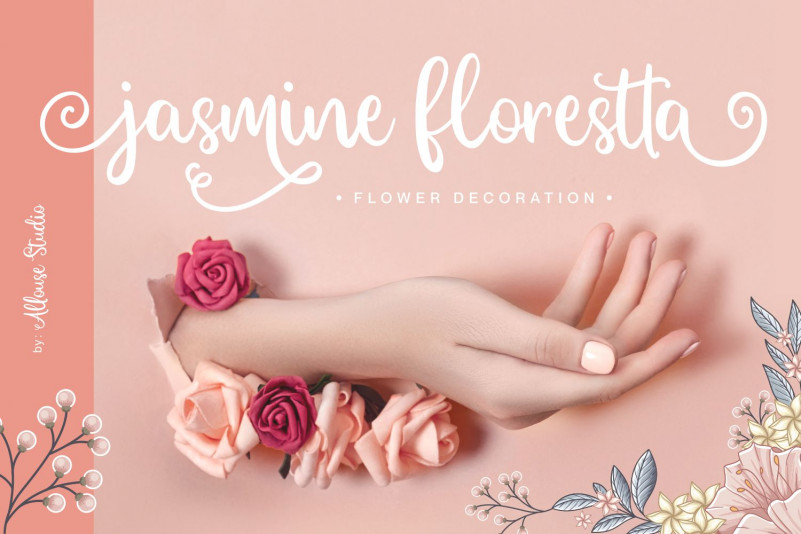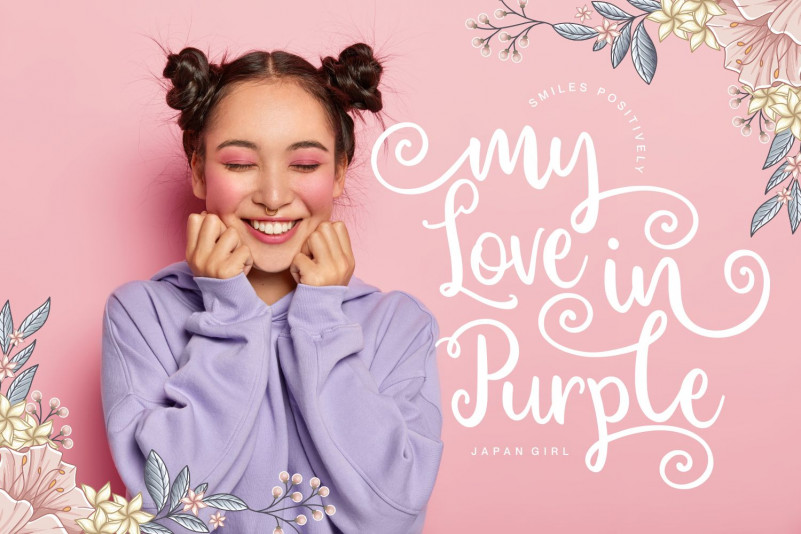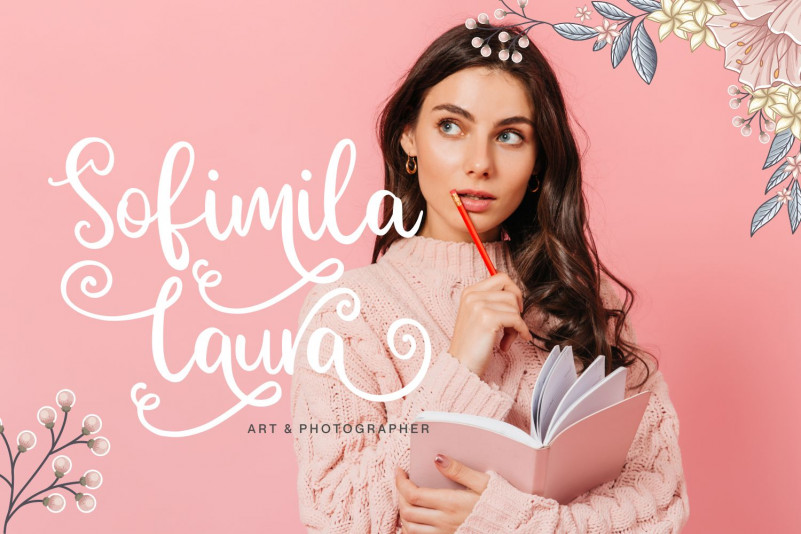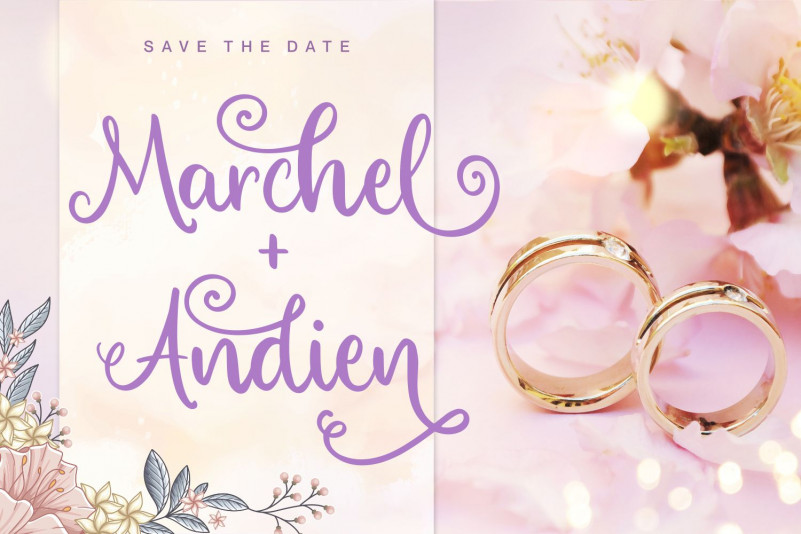
Alafyou Swirly Font
Alafyou Swirly Calligraphy Font
This is a sweet handwritten font with a lovely theme.Its flexibility and neat style will brighten up each of your designs. Have fun with this cool font and explore its endless variations.